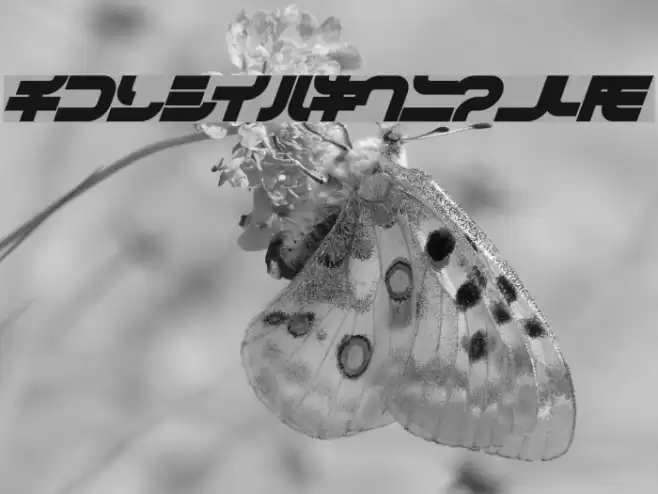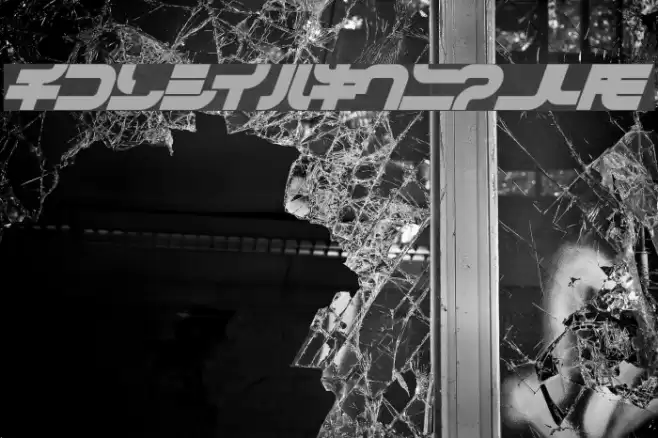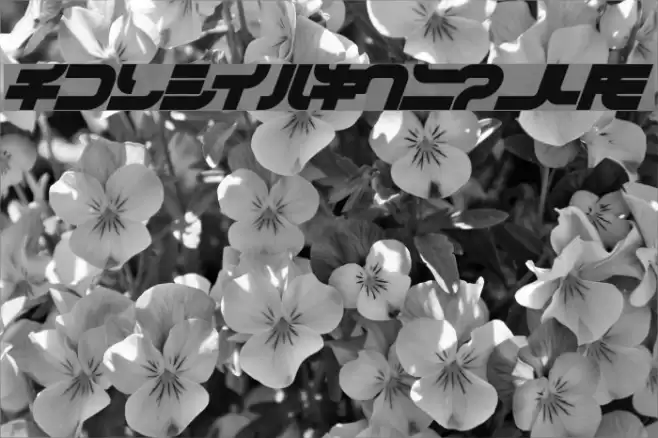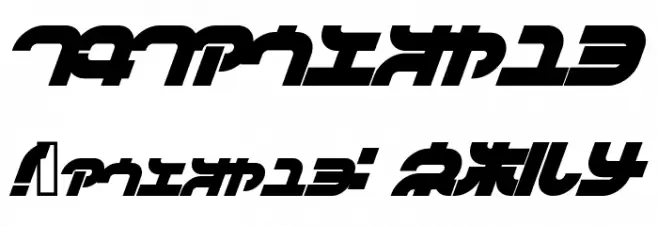
DanceMixN Font
DanceMixN Description
This font exhibits a bold, dynamic style with a futuristic and sporty aesthetic. The characters are heavily stylized with sharp angles and a forward-leaning slant, giving a sense of motion and speed. The strokes are thick and consistent, contributing to a strong visual impact. The design is highly geometric, with a focus on angular shapes and a streamlined appearance. This font is ideal for projects that require a modern and energetic look, such as sports branding, automotive designs, or tech-related materials. Its unique style makes it stand out, ensuring that any text set in this font will capture attention.
A bold, futuristic font with a dynamic, sporty style from Asian fonts.
- Proposed Projects: Ideal for sports branding, automotive designs, tech-related materials, and dynamic logos.